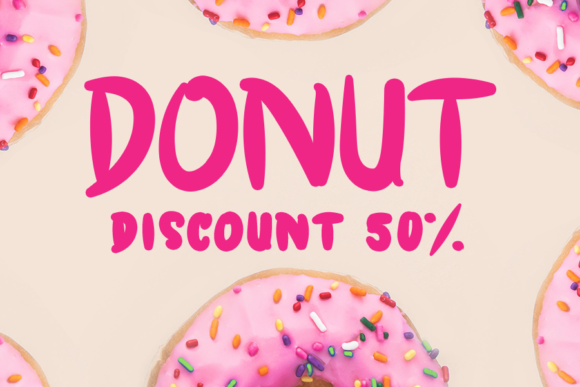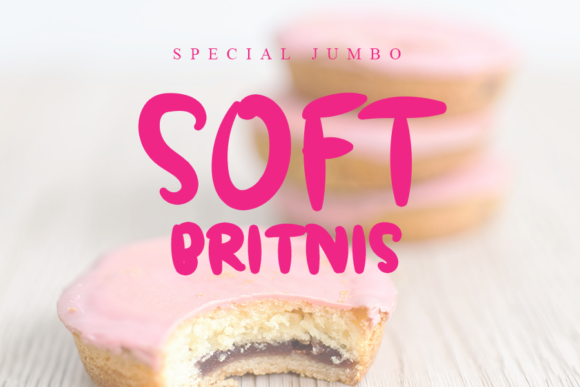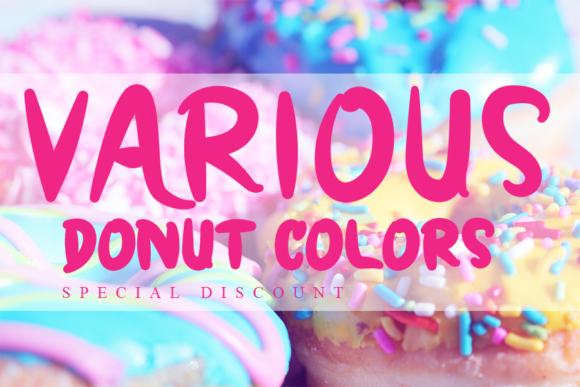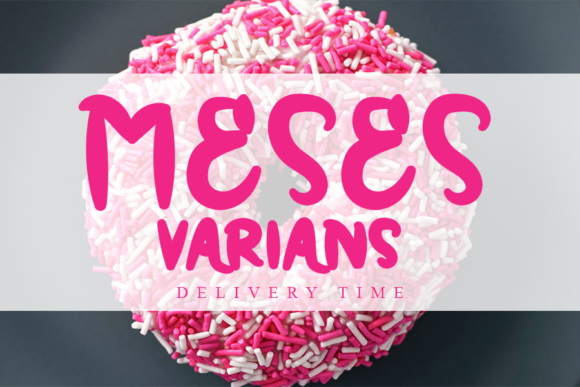
That’s where the Donut Birtnis Font comes in – a delightful, casual handwritten font that brings a friendly feel to any creative project. Whether you’re working on a DIY project or designing graphics for social media, this charming font is sure to make your ideas shine. With its versatility and unique charm, Donut Birtnis Font is a valuable addition to any designer’s toolkit.
Donut Birtnis Font Key Features
- Font Family: Donut Birtnis
- Unique Characteristics: Hand-drawn, whimsical, and playful design; ideal for creative and artistic projects
Donut Birtnis Font Review
Overall, I think the Donut Birtnis Font has some great qualities, but it’s not without its limitations. Let’s dive in and see what I mean.
- The Donut Birtnis Font has a unique and playful personality, perfect for adding a touch of whimsy to designs.
- The font is highly customizable, with a wide range of styles and sizes to choose from.
- It’s relatively easy to read, even at smaller font sizes.
- The font may be a bit too ornate for some designs, making it difficult to read in certain contexts.
- The customization options can be overwhelming, making it hard to choose the right style and size.
- The font doesn’t have as many language support options as some other fonts.
I think the Donut Birtnis Font is a great addition to any designer’s toolkit, but it’s not the best choice for every project. If you’re looking for a playful, customizable font, this might be the perfect fit. Just be sure to use it in the right context and don’t be afraid to experiment with different styles and sizes.
For best results, use the Donut Birtnis Font for designs that require a playful, whimsical touch, such as:
Children’s party invitations
Food and beverage branding
Social media graphics
Keep in mind that the Donut Birtnis Font is a script font, so it’s best suited for text that requires a handwritten or cursive look.
Exploring Creative Projects with Donut Birtnis Font
Project 1: Whimsical Donut Bakery Menu
Create a colorful and playful menu for a donut bakery using the Donut Birtnis Font. This font is perfect for highlighting the sweet treats and making the menu stand out.
To use Donut Birtnis Font in this project, create a design with bold, eye-catching colors and pair it with the font. Use it for headings, menu item names, and even as a decorative element. Consider adding illustrations of donuts or other bakery items to enhance the design.